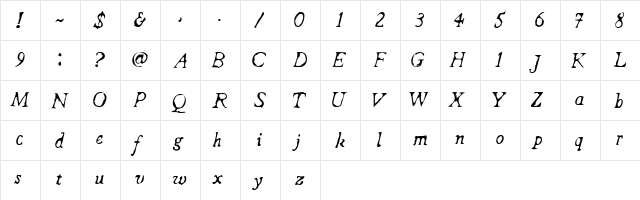
Forgotten Hospital Deadly
Design Context for Forgotten Hospital Typeface
Forgotten Hospital takes a measured approach to typography — its balanced proportions and neutral character make it a reliable workhorse for both digital and print work.
Pro Tip: Use Forgotten Hospital in both headline and body roles to test its range before committing to a single application.